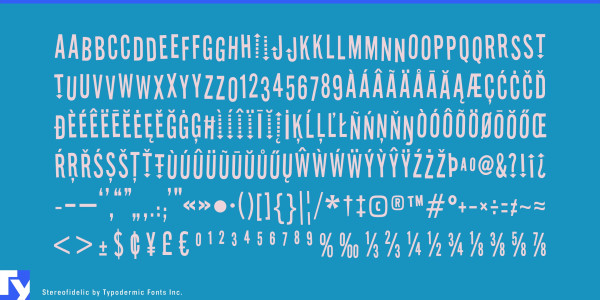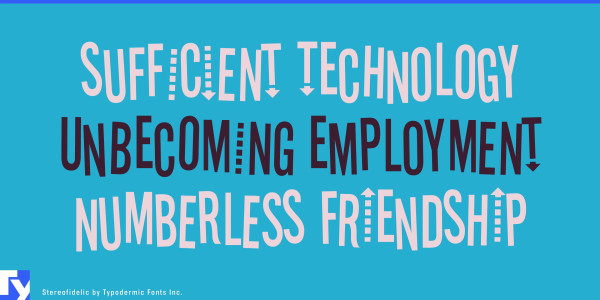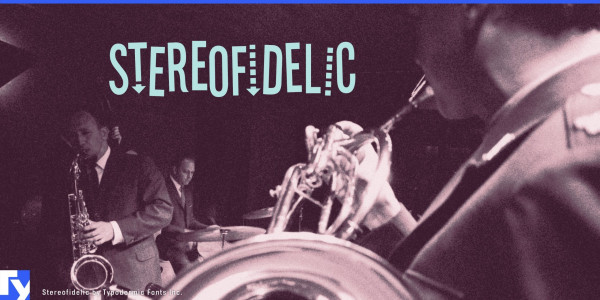
Stereofidelic Font
Stereofidelic Font is a tight-but-fun headline amplifier with cockamamy arrows. It was influenced by 1960s jazz and lounge records. In OpenType savvy applications, letters are shuffled to create a more random appearance. Most Latin-based European writing systems are supported, including the following languages. Afaan Oromo, Afar, Afrikaans, Albanian, Alsatian, Aromanian, Aymara, Bashkir (Latin), Basque, Belarusian (Latin), Bemba, Bikol, Bosnian, Breton, Cape Verdean, Creole, Catalan, Cebuano, Chamorro, Chavacano, Chichewa, Crimean Tatar (Latin), Croatian, Czech, Danish, Dawan, Dholuo, Dutch, English, Estonian, Faroese, Fijian, Filipino, Finnish, French, Frisian, Friulian, Gagauz (Latin), Galician, Ganda, Genoese, German, Greenlandic, Guadeloupean Creole, Haitian Creole, Hawaiian, Hiligaynon, Hungarian, Icelandic, Ilocano, Indonesian, Irish, Italian, Jamaican, Kaqchikel, Karakalpak (Latin), Kashubian, Kikongo, Kinyarwanda, Kirundi, Kurdish (Latin), Latvian, Lithuanian, Lombard, Low Saxon, Luxembourgish, Maasai, Makhuwa, Malay, Maltese, Māori, Moldovan, Montenegrin, Ndebele, Neapolitan, Norwegian, Novial, Occitan, Ossetian (Latin), Papiamento, Piedmontese, Polish, Portuguese, Quechua, Rarotongan, Romanian, Romansh, Sami, Sango, Saramaccan, Sardinian, Scottish Gaelic, Serbian (Latin), Shona, Sicilian, Silesian, Slovak, Slovenian, Somali, Sorbian, Sotho, Spanish, Swahili, Swazi, Swedish, Tagalog, Tahitian, Tetum, Tongan, Tshiluba, Tsonga, Tswana, Tumbuka, Turkish, Turkmen (Latin), Tuvaluan, Uzbek (Latin), Venetian, Vepsian, Võro, Walloon, Waray-Waray, Wayuu, Welsh, Wolof, Xhosa, Yapese, Zapotec Zulu and Zuni.